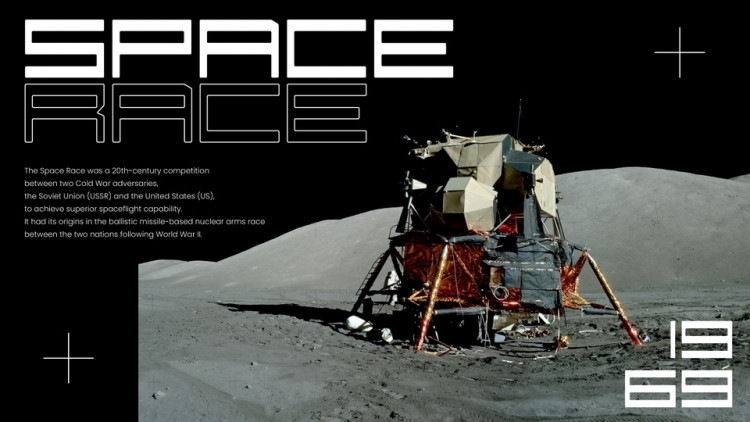
Smotret Display Font
This is a futuristic modern display typeface with unique style. Inspired by an old Russian clock. Energetic, geometric and bold. It will make your text POP even more. Contains ligatures to make the text even wider.